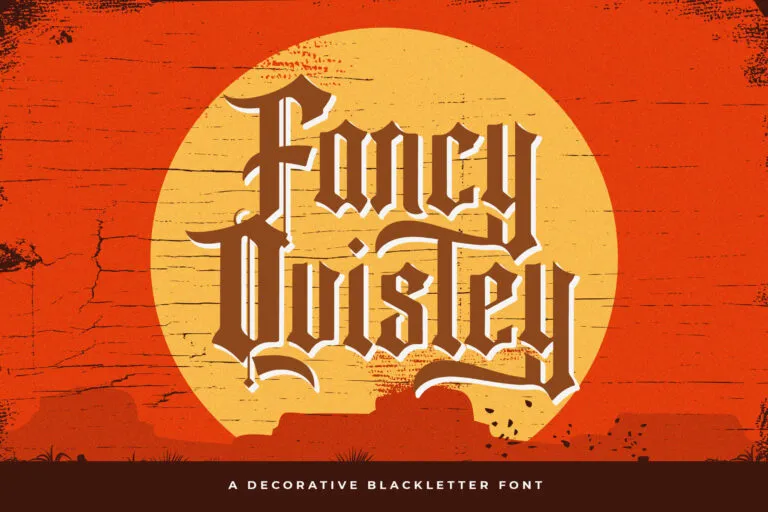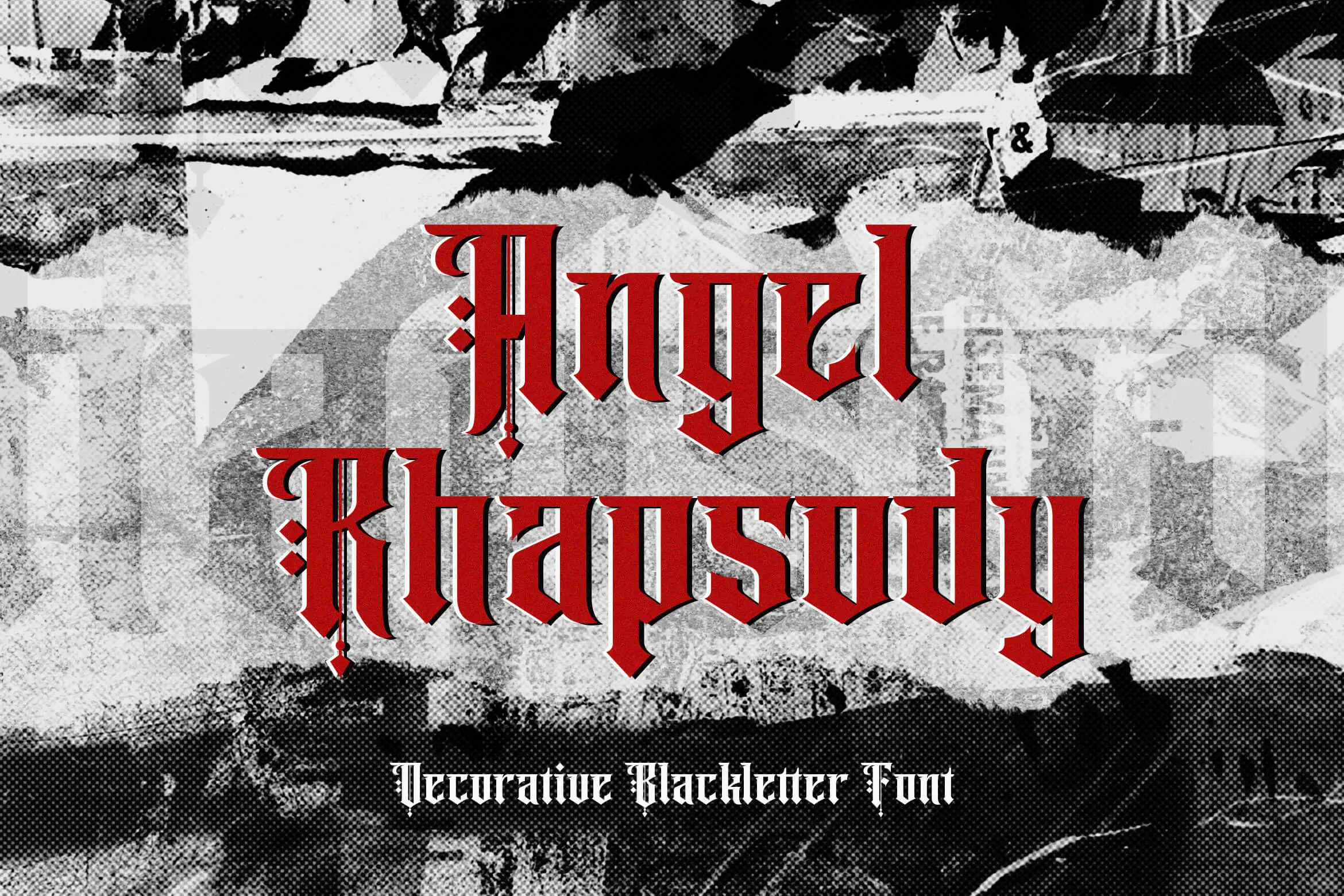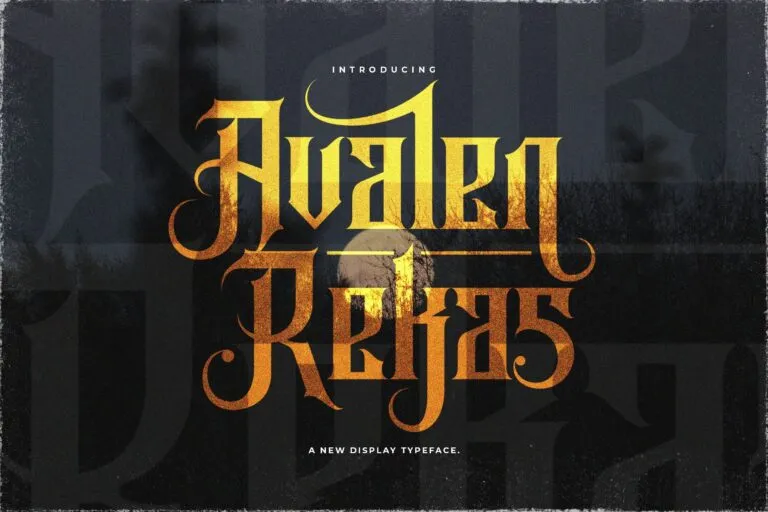
Elegant Blackletter Fonts for Modern Design Projects
Blackletter font is a classic typeface style known for its bold, artistic, and historic character. Often used in medieval manuscripts and gothic literature, blackletter has made a powerful comeback in the world of modern designโ€”especially in projects that seek elegance, drama, or vintage appeal.
In this article, weโ€™ll explore the origins of blackletter, when to use it, how to pair it effectively with other typefaces, and give you elegant design inspirations that will make your visuals stand out. Whether youโ€™re working on branding, posters, invitations, or digital graphics, this guide will help you embrace the beauty of blackletter font without compromising readability or modern appeal.
What is Blackletter Font?
Blackletter font (also known as Gothic script or Old English) is a script style that emerged in Western Europe during the 12th century. Originally used in handwritten manuscripts, this typeface was one of the first to be used in printed booksโ€”most famously, the Gutenberg Bible.
The font is characterized by:
• Tall, narrow letters
• Sharp, angular lines
• Elaborate serifs and flourishes
• Dense vertical strokes
Some of the most recognized blackletter styles include:
• Textura
• Fraktur
• Rotunda
• Bastarda
Why Designers Still Love Blackletter Today
Even though it originated centuries ago, blackletter fonts continue to find their place in:
• Logo design
• Luxury branding
• Tattoo art
• Album covers
• Fashion and streetwear
• Posters and flyers
Its bold visual style instantly adds depth, attitude, or historical elegance depending on how it’s applied.
How to Make Your Designs Stand Out Using Blackletter Font
Whether you’re designing for fashion, music, or high-end branding, blackletter font helps your work make a lasting impression. When used with balance and contrast, it transforms simple layouts into artful, story-driven designs.
Pairing blackletter with neutral color schemes or clean modern fonts creates elegant contrast. This balance is key to keeping the overall design legible and impactful.
Top Blackletter Fonts You Should Try
Here are a few well-known blackletter fonts that designers often use:
1. Cloister Black โ€“ A classic, ornate font
2. UnifrakturCook โ€“ An open-source Fraktur variation
3. Old English Text MT โ€“ A widely used traditional choice
4. Gothic Ultra OT โ€“ Bold and attention-grabbing
5. Sabbath Black โ€“ Perfect for album or music branding
Elegant Blackletter Font Recommendations from StringLabs
Here are elegant, premium blackletter fonts from StringLabs Creative that blend gothic beauty with modern design needs:
1. Angel Wish
Angel Wish Blackletter Font
Angel Wish is a premium blackletter font that blends medieval charm with modern elegance. Inspired by classic calligraphy and vintage typefaces, this font is ideal for designers looking to add a touch of history, mystery, and drama to their creative projects.
Whether you’re designing a logo, crafting tattoo art, creating music album covers, or building gothic-themed branding, Angel Wish gives your typography a bold, unforgettable look.
Why Choose Angel Wish?
• Elegant blackletter design with a classic gothic feel
• Includes uppercase, lowercase, numbers, and punctuation
• Supports multiple languages
• Perfect for branding, posters, headlines, labels, and more
• Works great in both print and digital projects
Angel Wish is not just a fontโ€”itโ€™s a visual experience. Its sharp lines and ornamental curves bring historical depth to your typography, making your text feel powerful and unique.
2. Angel Rhapsody โ€“ Gothic-romantic hybrid, ideal for editorials
Angel Rhapsody Blackletter Font
Angel Rhapsody is a striking decorative blackletter font that channels vintage gothic energy into every curve and serif. With dramatic contrast and ornamental touches, this font is perfect for eye-catching designs that demand attention.
This font makes a powerful statement, especially in branding, poster art, album covers, tattoo graphics, and historical-themed designs. Each letterform is crafted to be expressive, bold, and impactfulโ€”ideal for creative projects that embrace the darker, artistic side of typography.
Font Features:
• Gothic blackletter with decorative flair
• Complete set of uppercase and lowercase characters
• Includes numerals and punctuation
• Multilingual support
• Suitable for dark fantasy, metal music, gothic fashion, and vintage-inspired designs
Ideal Uses: